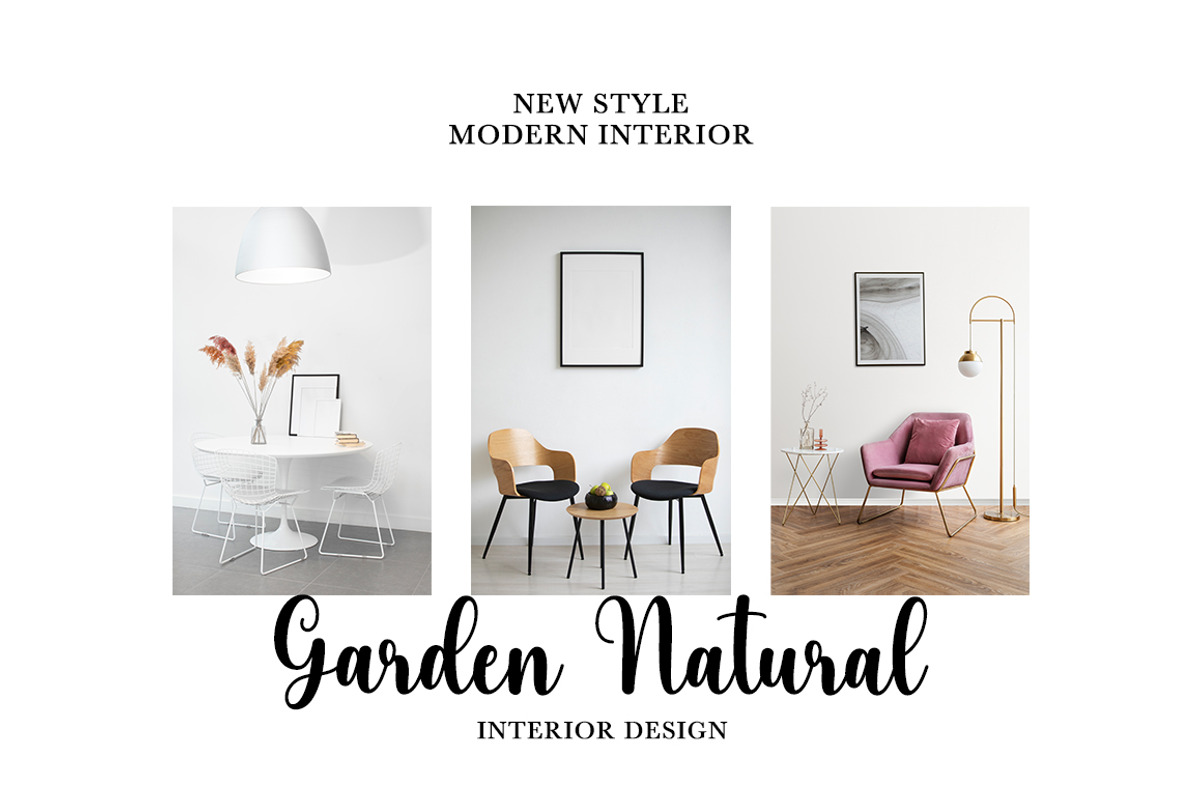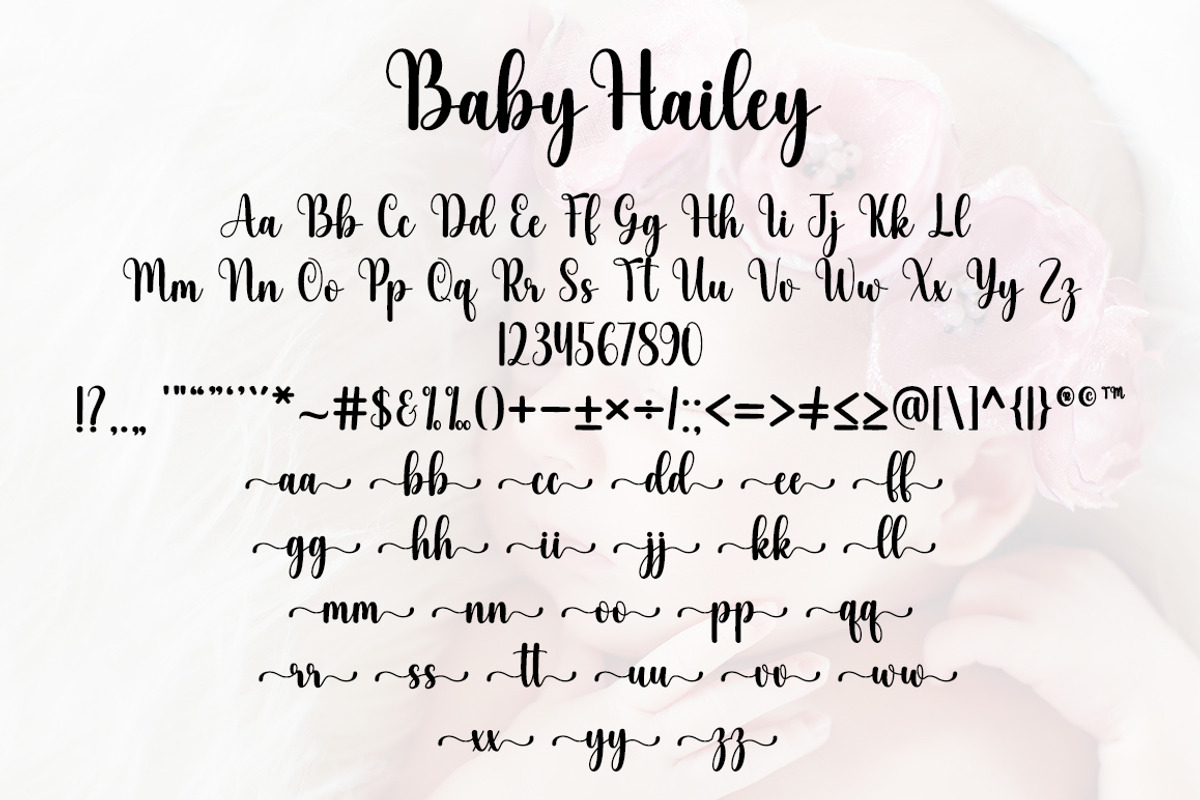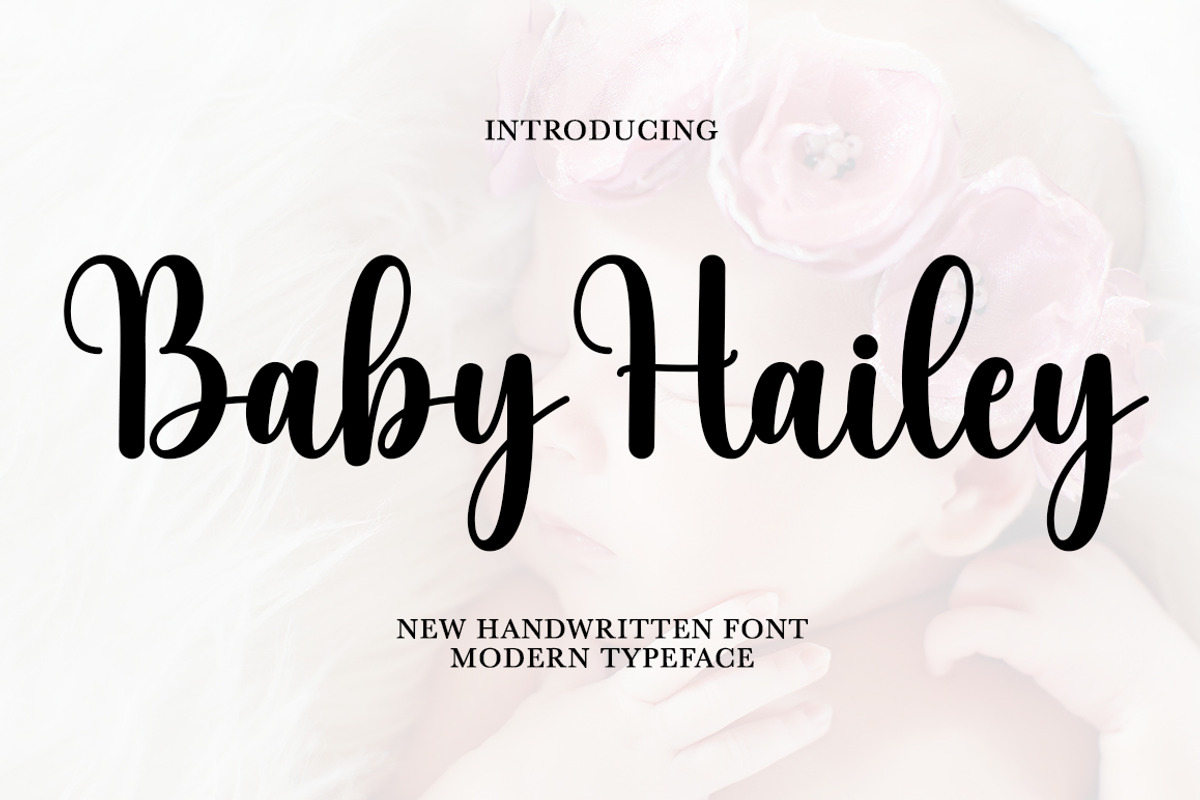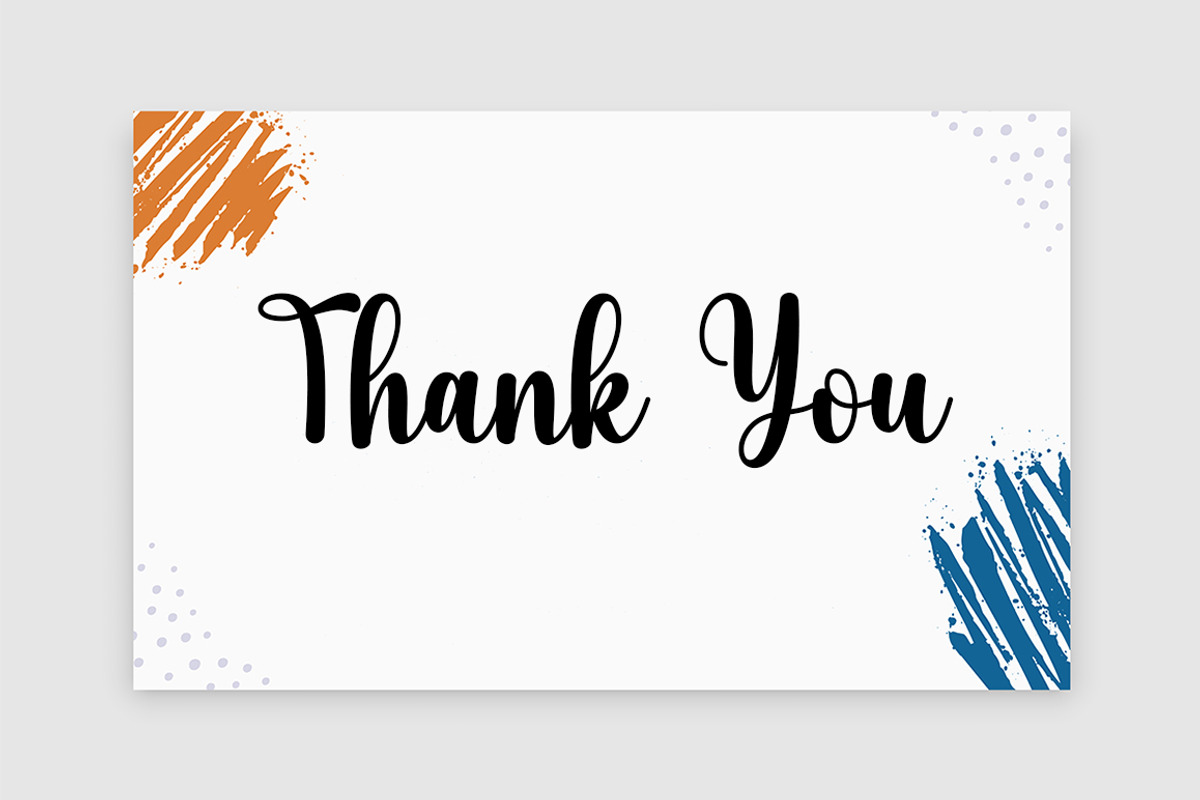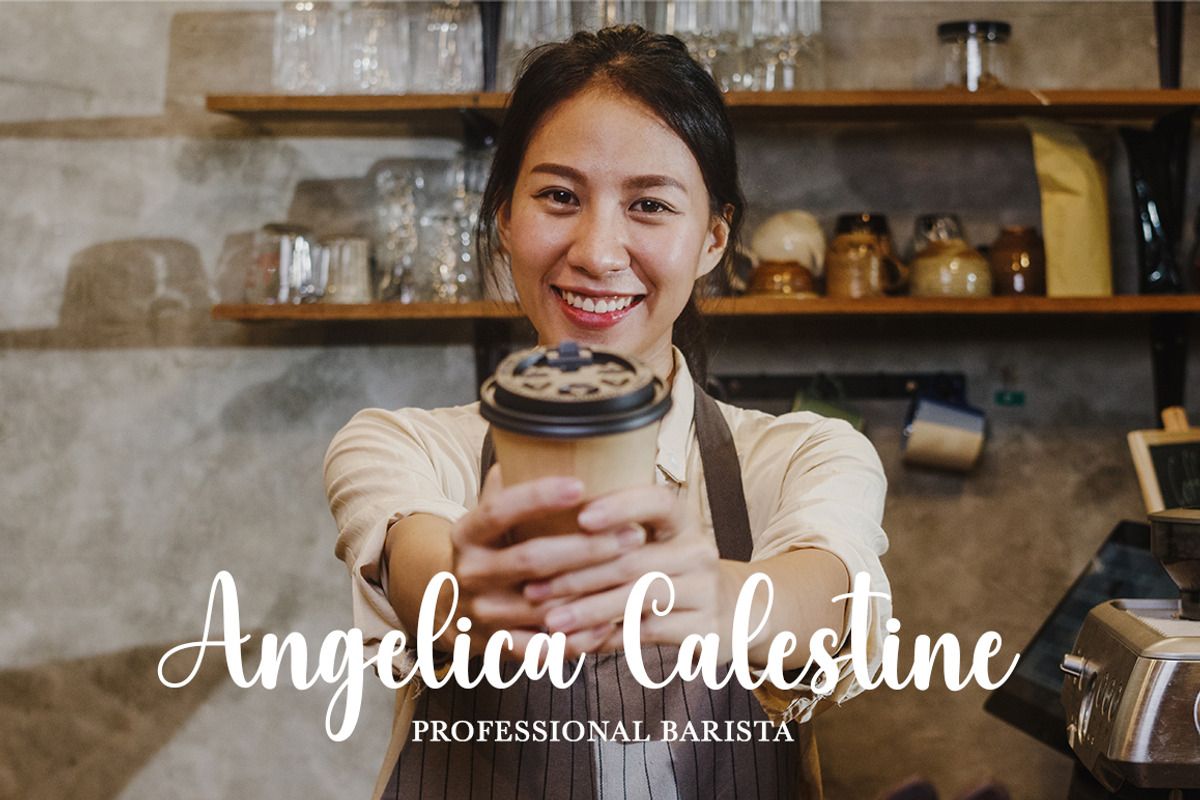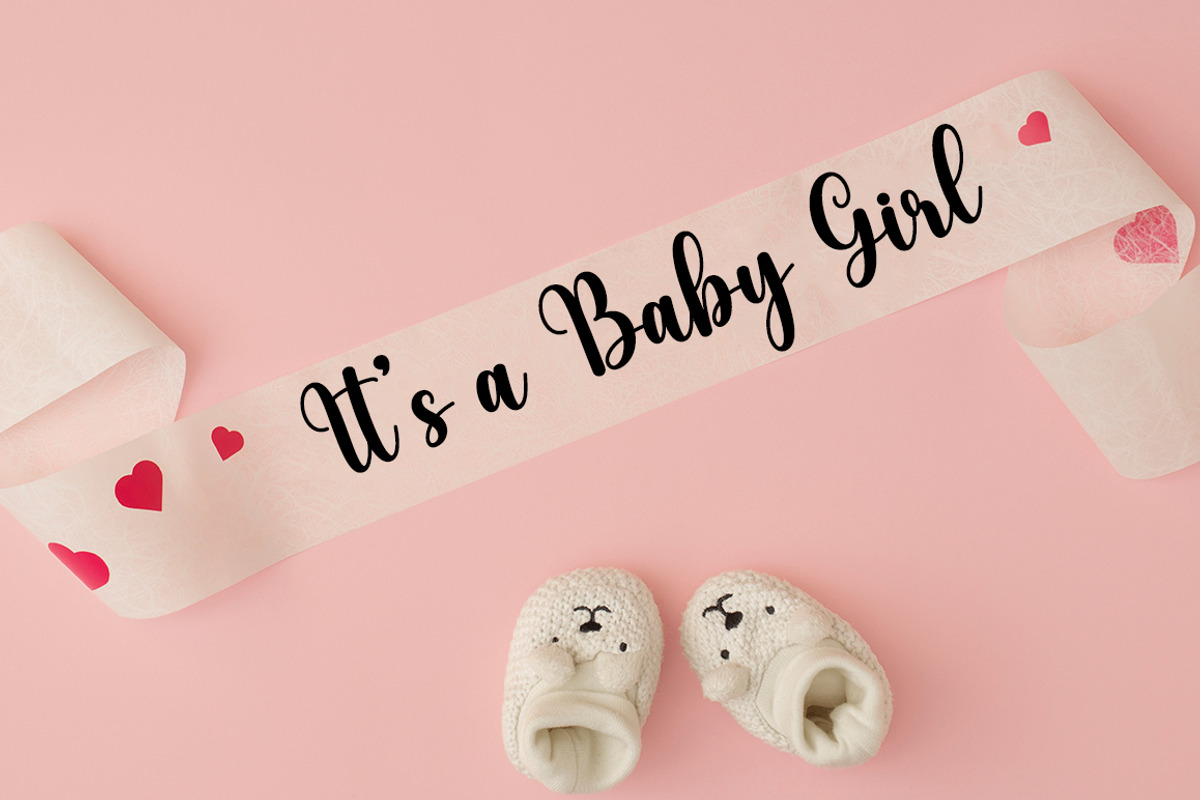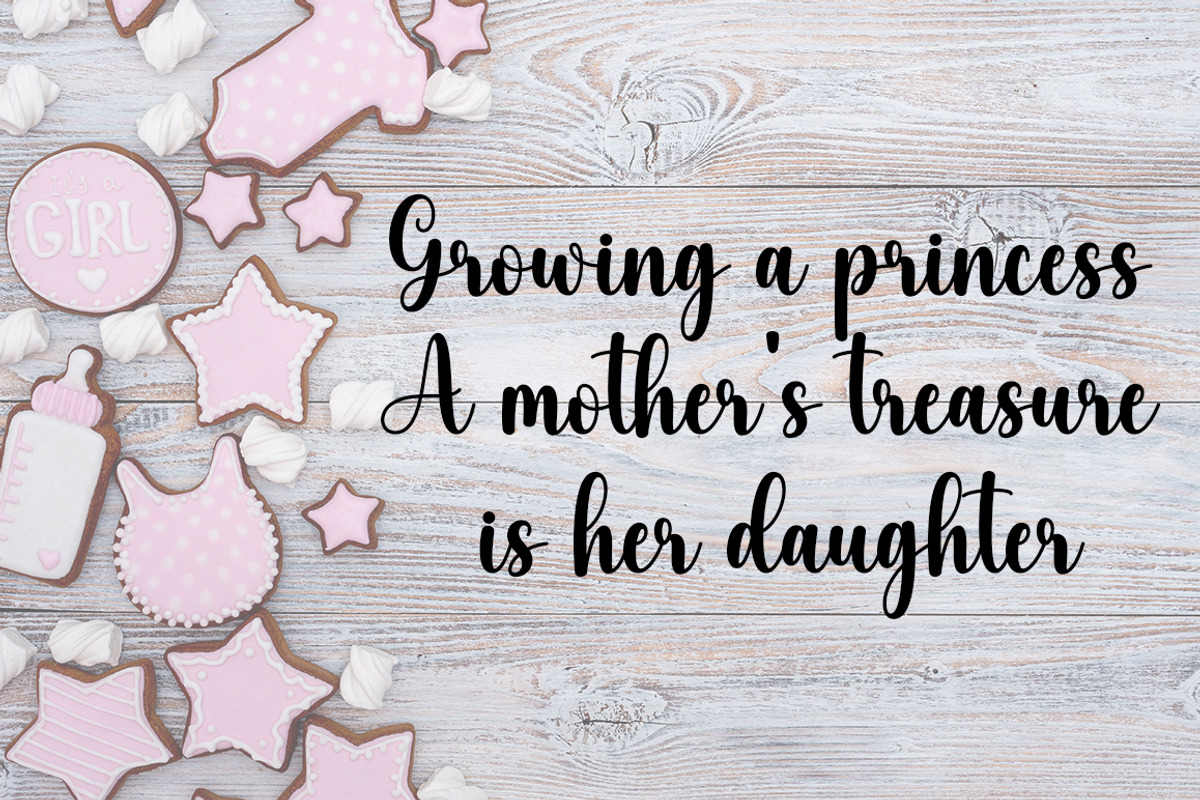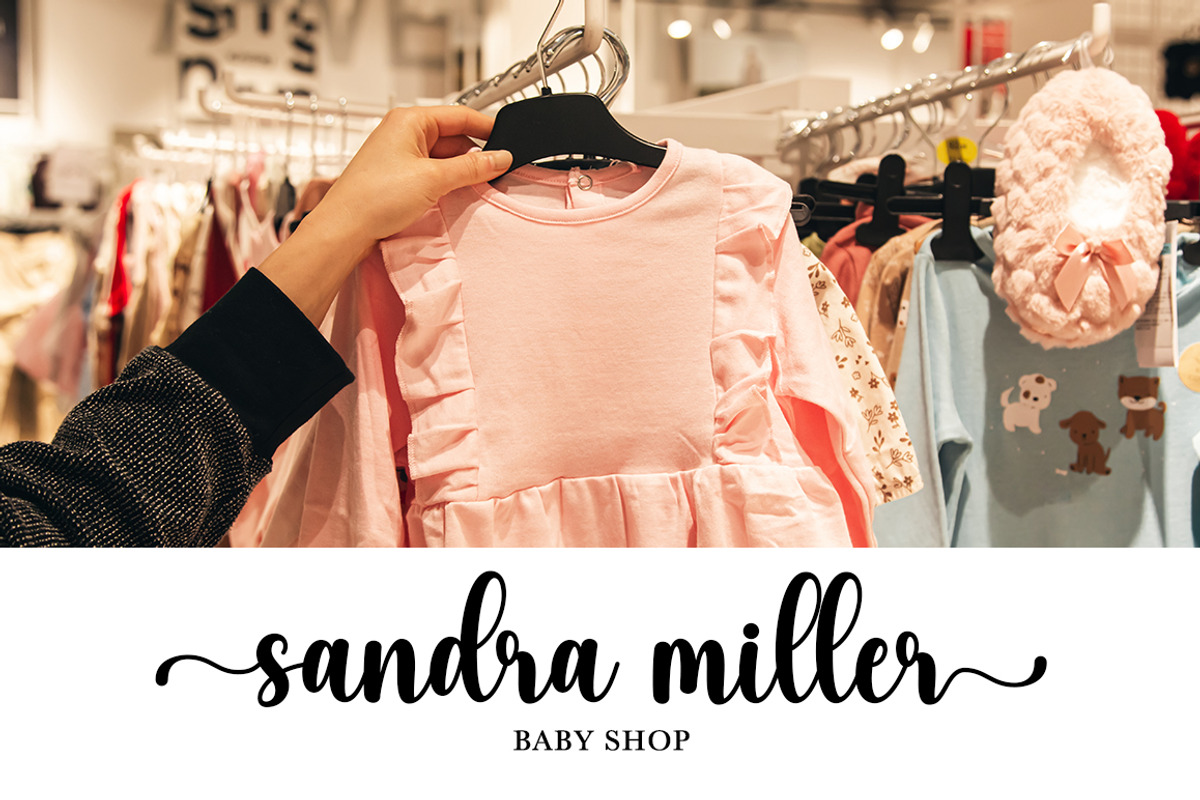
Baby Hailey
Baby Hailey script is a modern calligraphy design including Regular. This font is casual and beautiful with swashes. Can be used for various purposes such as logos, product packaging, wedding invitations, branding, headlines, signage, labels, signatures, book covers, posters, quotes, and much more.